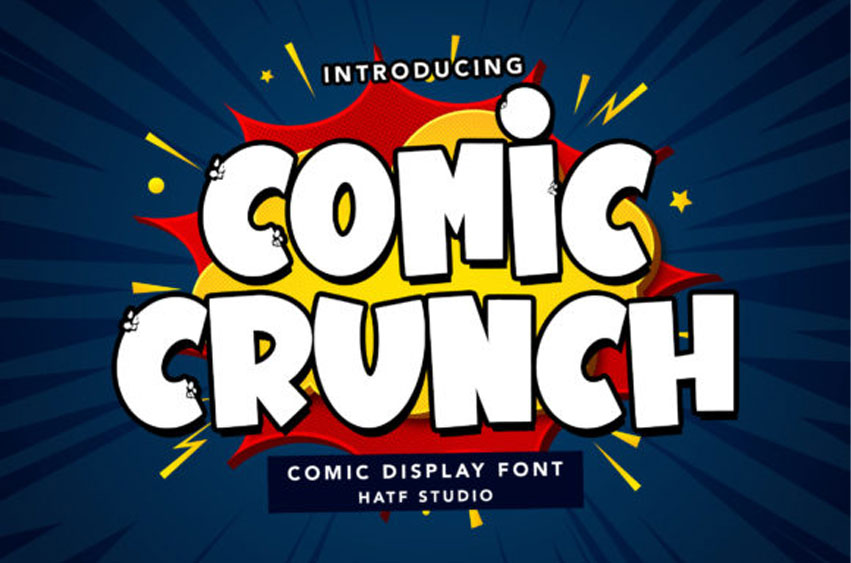
Comic Crunch Font
Comic Crunch Font is a bold and thick lettered display font.
No matter the topic, this font will be an incredible asset to your fonts’ library, as it has the potential to elevate any creation.